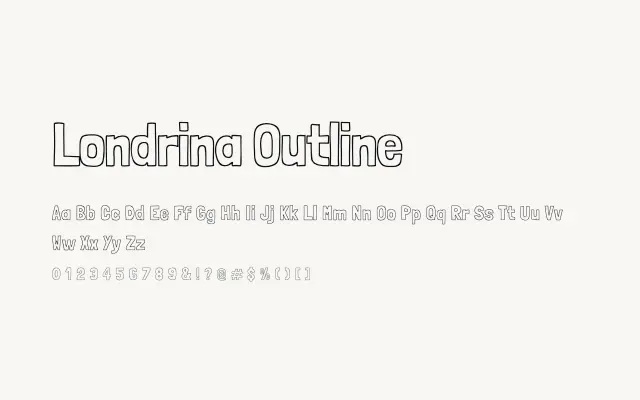
Londrina Outline
The hollow outline variant of Londrina, offering a light, hand-drawn decorative effect suited to casual display work.
Londrina Outline strips the letterforms back to their contours, producing an airy, informal display face with strong personality. It works well for posters, event branding, and headlines where a lighthearted, handcrafted feel is needed. Best used at large sizes where the outline detail registers clearly.
Londrina Outline is the outlined variant of the Londrina family, featuring only the stroke contour of the letterforms with no fill, giving a light, decorative quality. The design retains the hand-drawn, informal character of the broader family.